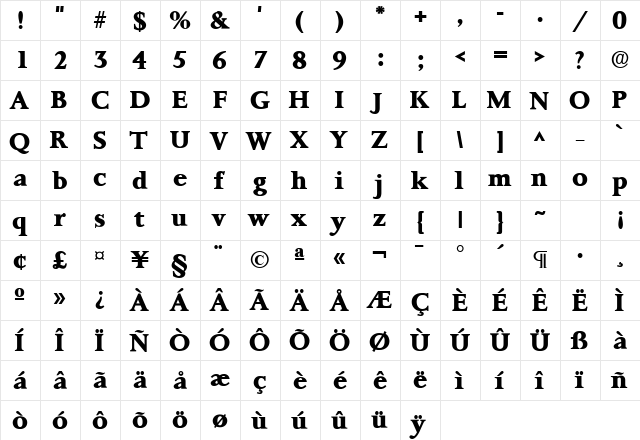
ft8b Bold Font Preview
ft8b Bold
ft8b Bold Font Details
Design Context for ft8b Typeface
ft8b is a composed and adaptable typeface that performs quietly and consistently across a wide range of design contexts. The heavy weight commands attention and anchors typographic hierarchies.